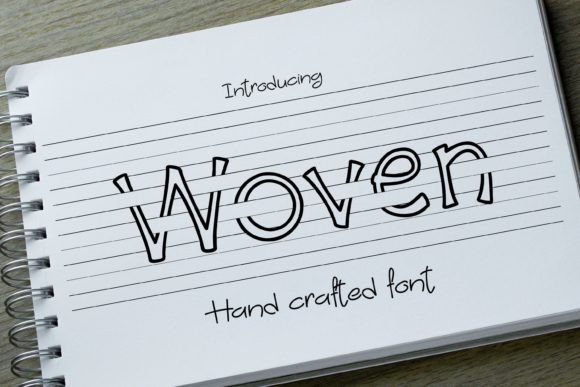
Dive into the world of Woven Font, the captivating decorative font that weaves its way into your designs, leaving a trail of uniqueness and charm. Picture this: your words, encased in these three-dimensional letters, appear to dance across the page, gracefully intertwining and floating above the notebook paper's texture. Unleash your creativity and let Woven Font transform your designs into masterpieces.
With Woven Font, the possibilities are endless. Craft eye-catching social media posts that pop off the screen, design personalized stationery that exudes elegance, and create greeting cards that warm hearts with their charm. Woven Font's distinct style will make your words stand out, captivating your audience and leaving a lasting impression.
Woven Font's versatility knows no bounds. Its playful character adds a touch of whimsy to logos and branding, while its intricate details bring depth and dimension to posters and flyers. Elevate your presentations and reports with Woven Font's sophisticated touch, ensuring your ideas shine through with clarity and impact.
Don't settle for ordinary fonts that blend into the background. Choose Woven Font, the font that captivates, engages, and inspires. Its unique design will make your creations shine, whether you're a seasoned designer or just starting your creative journey. Discover the magic of Woven Font today and let your designs blossom with personality and style.